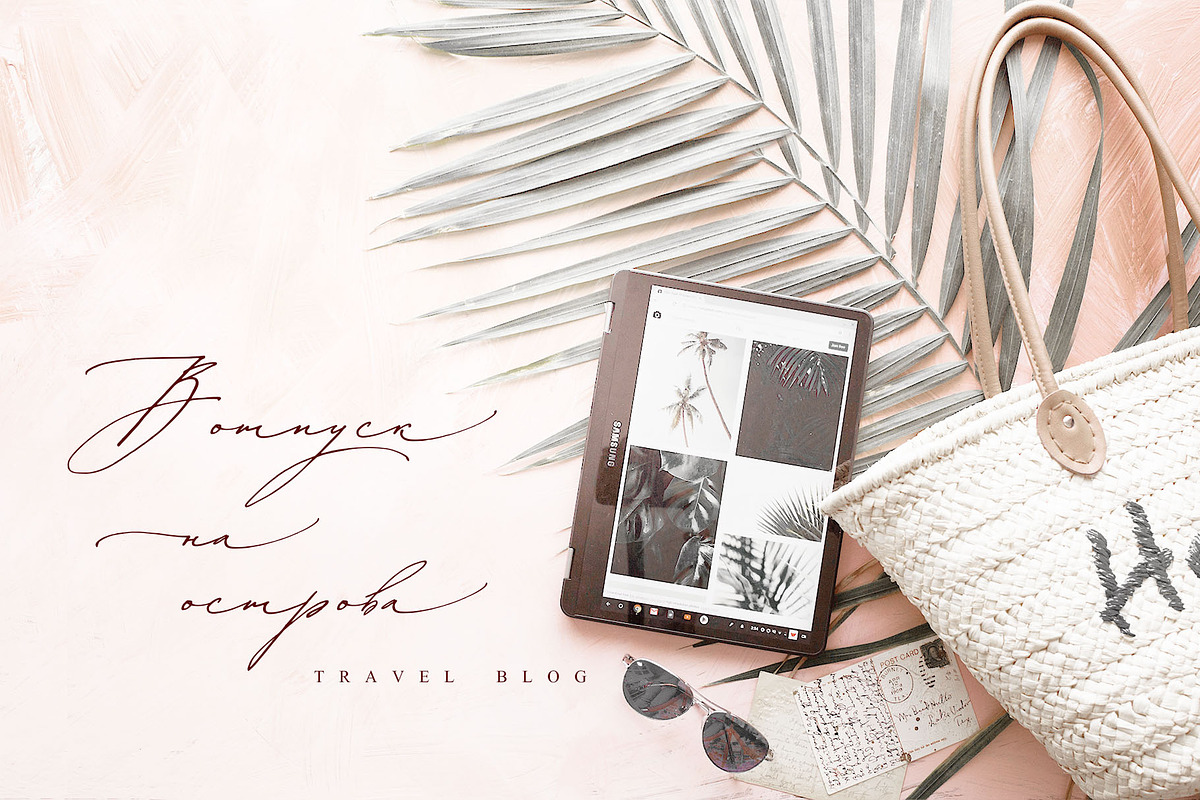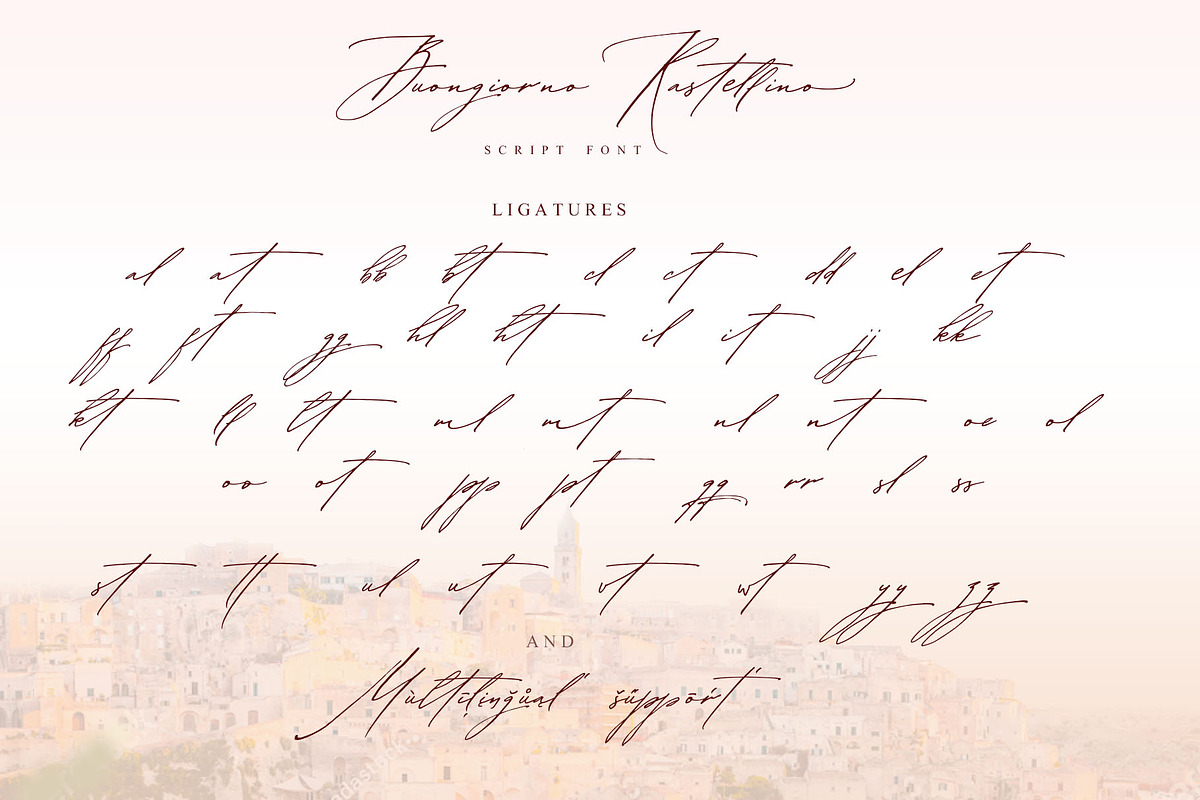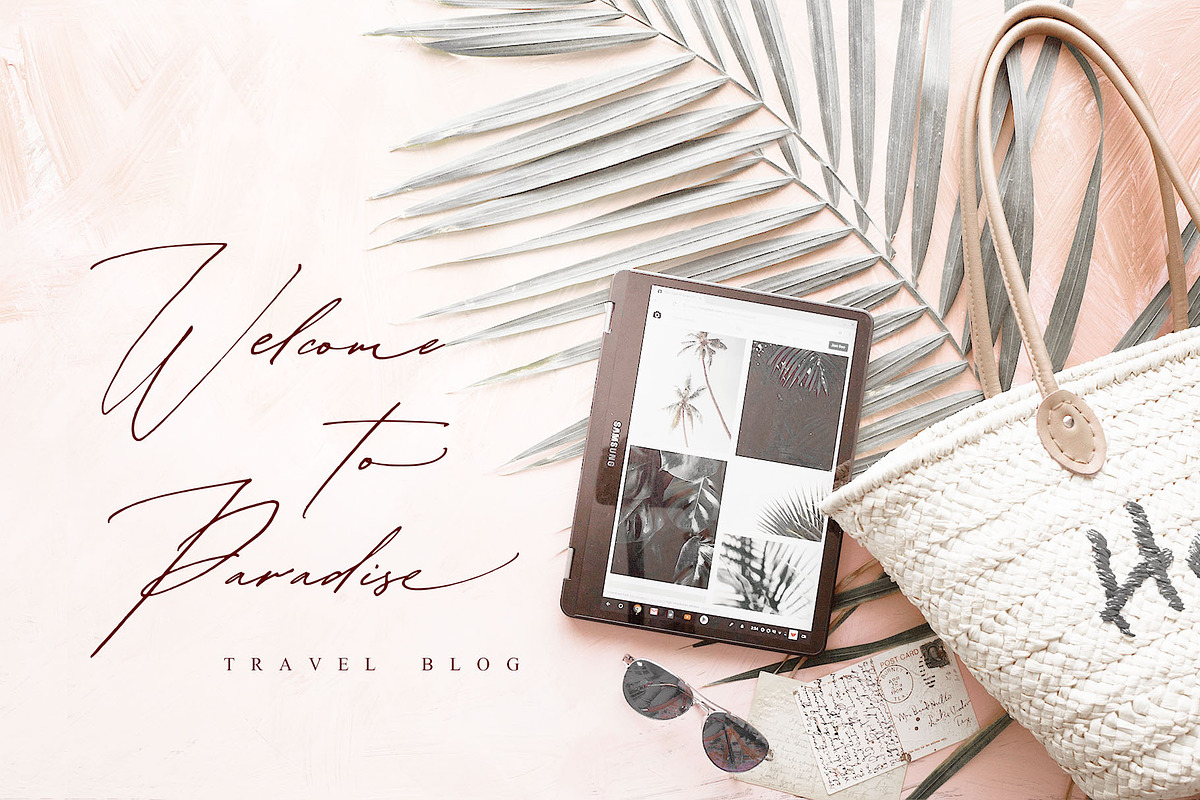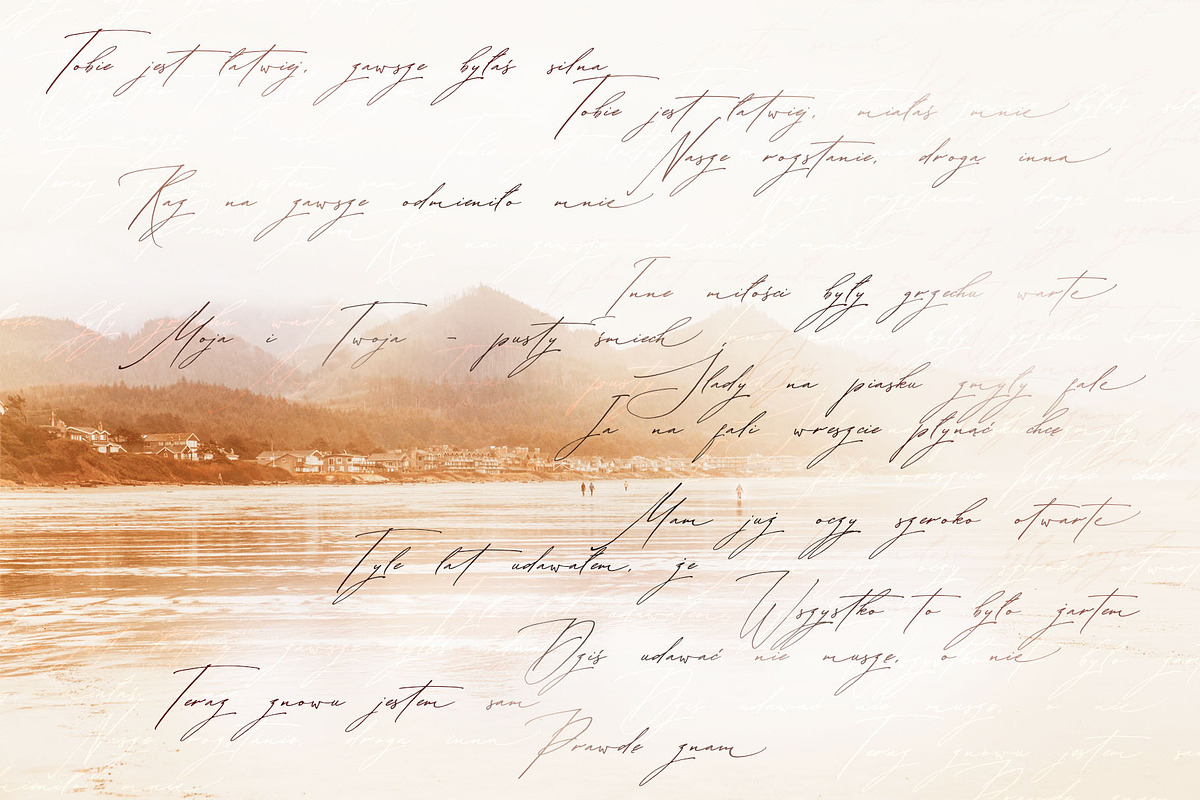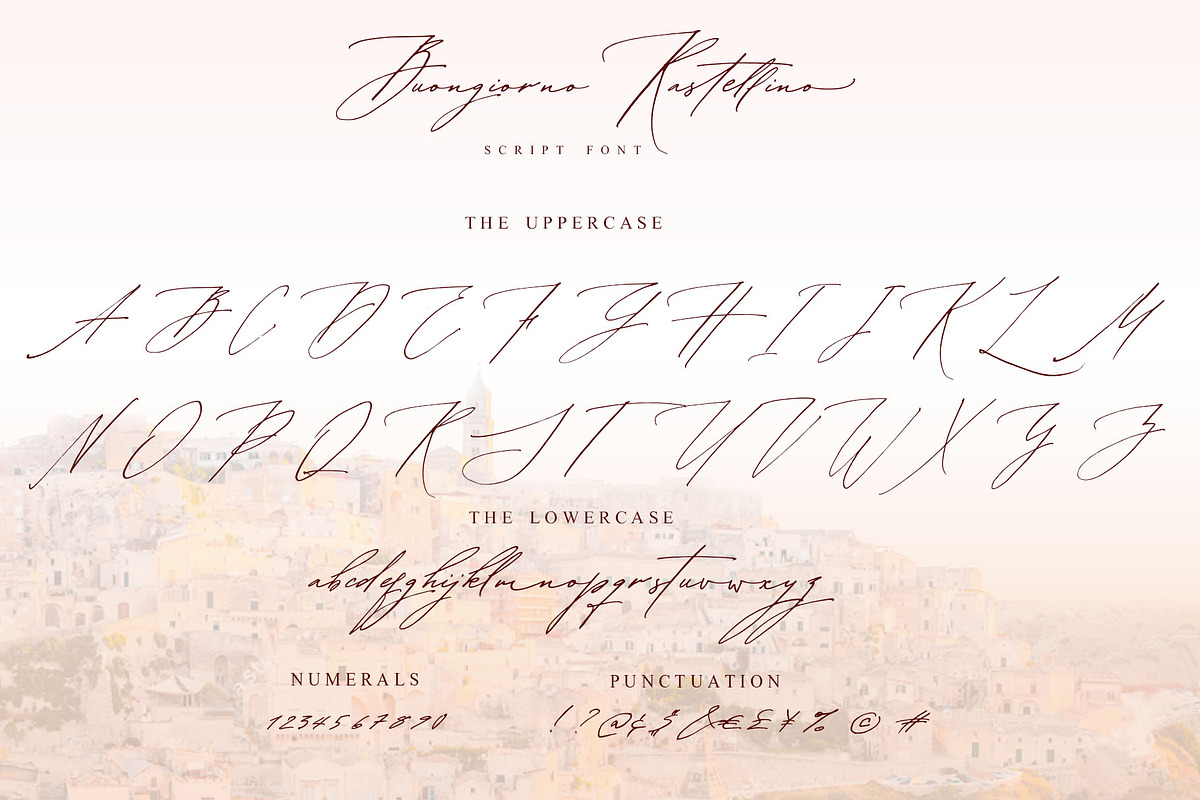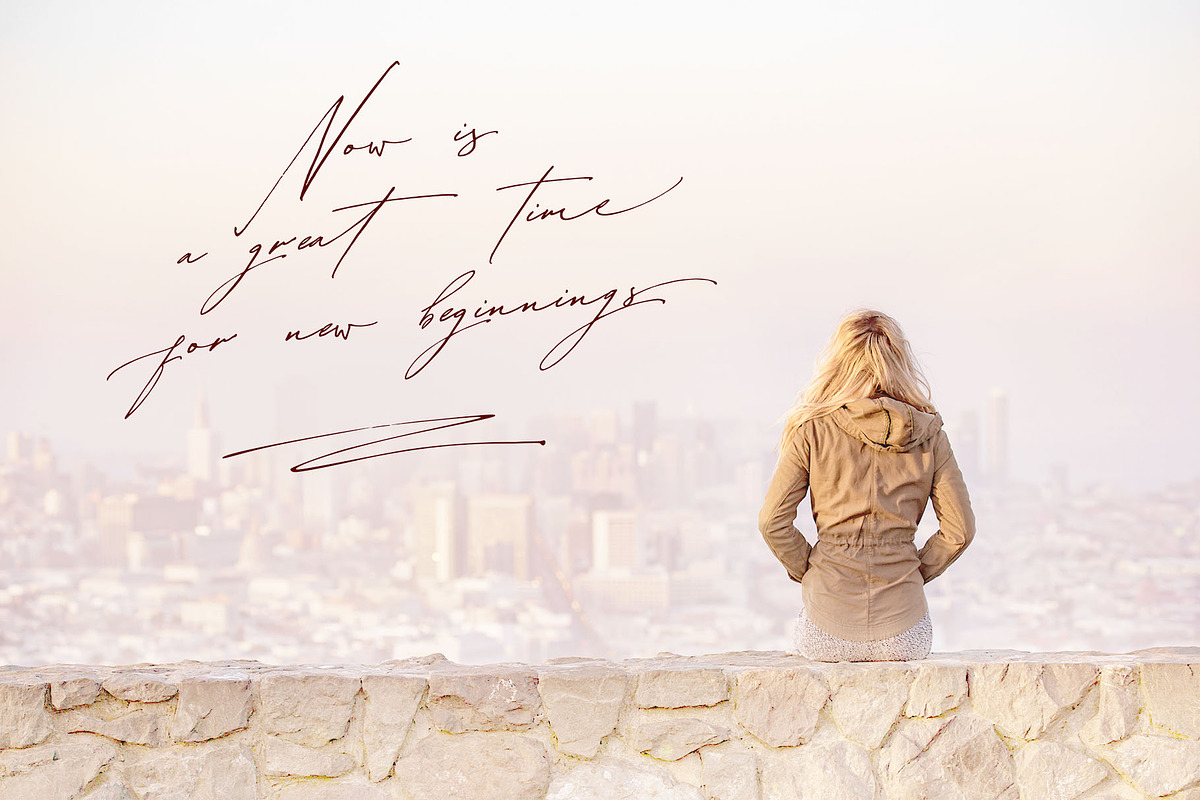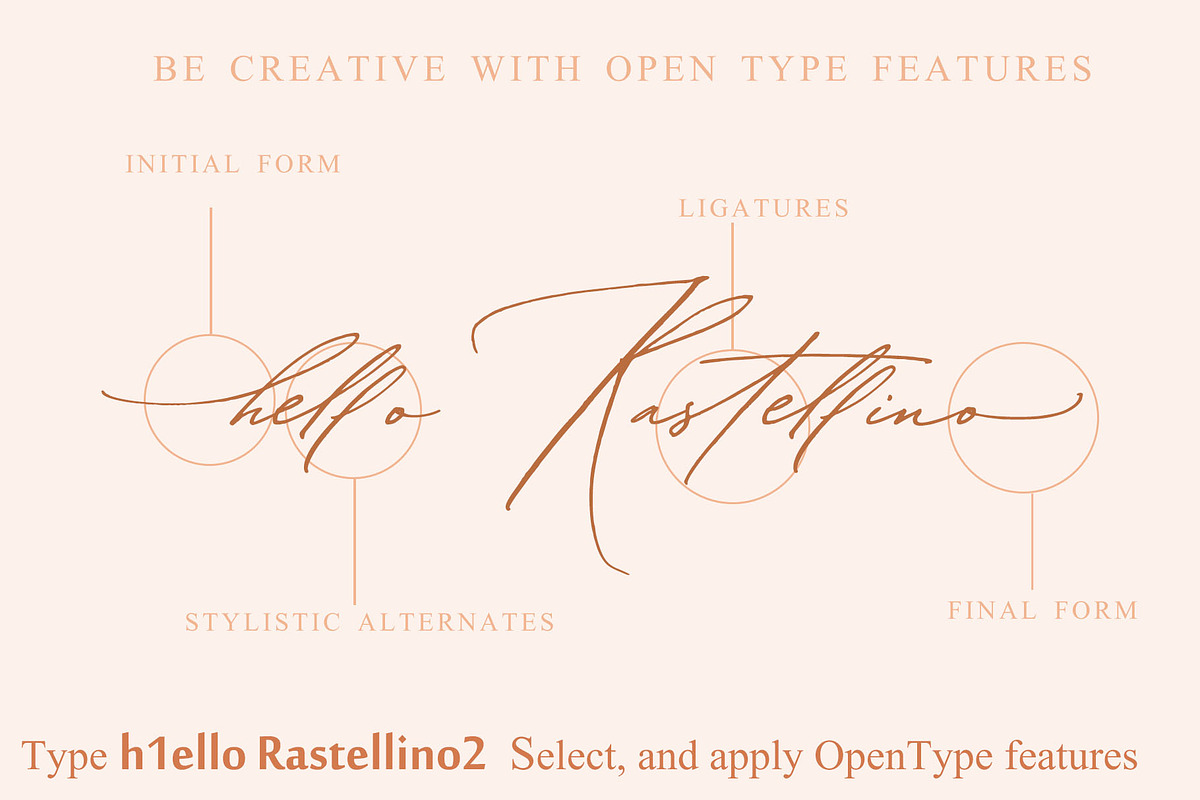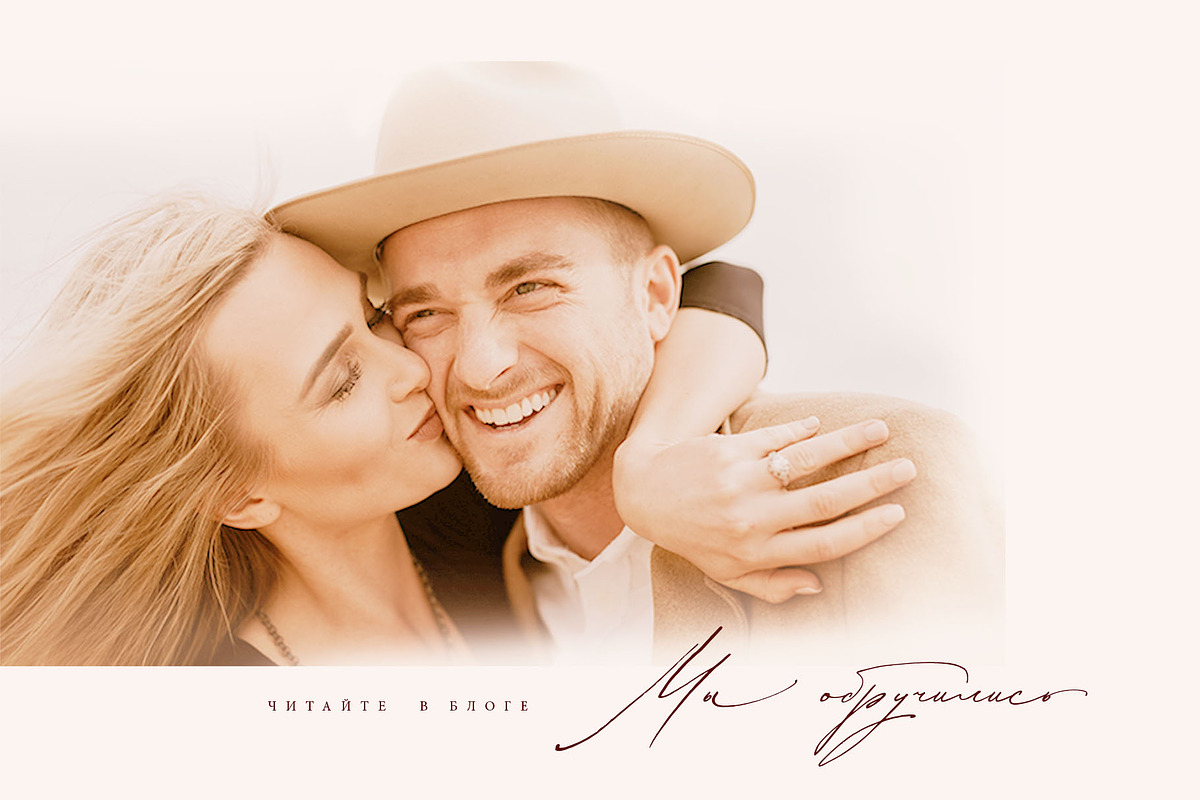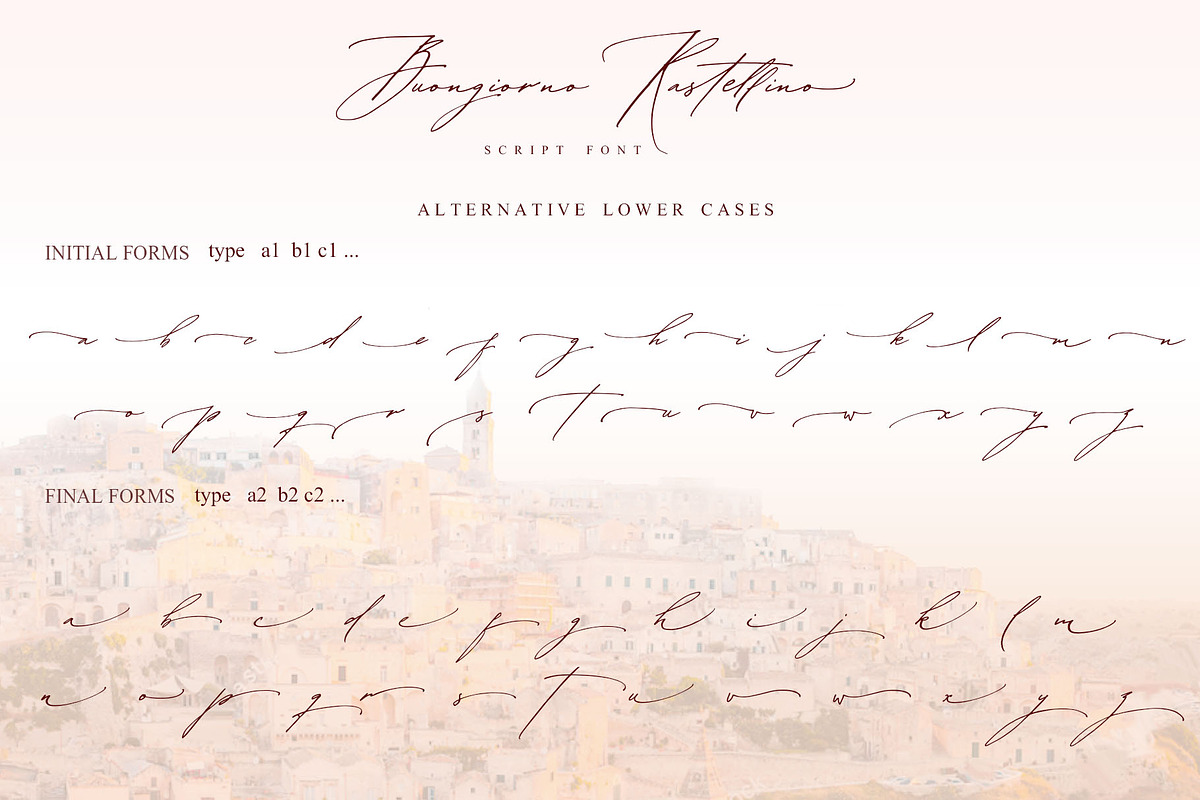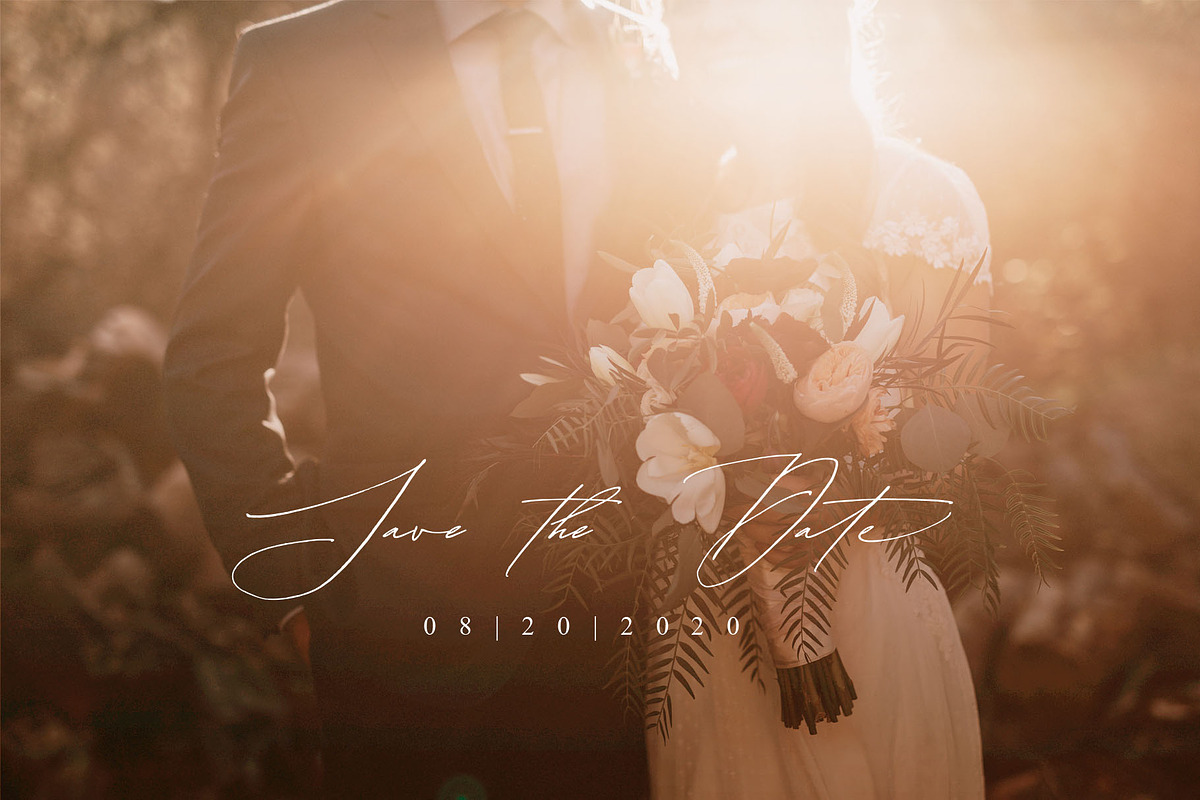
Buongiorno Rastellino font Cyrillic
Buongiorno Rastellino — Elegant Handwritten Script Font with Cyrillic & Latin Support
Buongiorno Rastellino is an expressive handwritten script font created for designers who want their typography to feel elegant, personal, feminine, and authentically hand-lettered. Its flowing strokes, graceful curves, decorative swashes, and distinctive letterforms give every word a natural handwritten character.
Inspired by expressive brush lettering and modern calligraphy, Buongiorno Rastellino combines a romantic aesthetic with the versatility needed for contemporary branding and graphic design. It works beautifully when you need typography that feels warm, sophisticated, artistic, and memorable.
A special feature of the font is its collection of letters with extended tails and decorative swashes. These elongated letterforms can flow beneath or around neighboring characters, creating elegant flourishes and expressive handwritten compositions. Use them to add movement, personality, and a custom hand-lettered feel to names, headlines, logos, quotes, and short phrases.
Cyrillic & Latin Script Font
Buongiorno Rastellino includes Cyrillic and Latin alphabets, making it an excellent choice for multilingual projects and designers working with both Western and Eastern European languages.
The font includes a variety of alternative letterforms and OpenType features that allow you to customize your lettering and create more natural-looking combinations. Ligatures and stylistic alternatives help avoid the repetitive appearance of standard typed text and make each composition feel more like authentic hand lettering.
Multilingual Support — 82 Languages
Buongiorno Rastellino provides extensive multilingual support for 82 languages, making this handwritten script font suitable for international branding, packaging, wedding stationery, editorial design, social media content, and other multilingual creative projects.
With broad support for both Latin and Cyrillic writing systems, Buongiorno Rastellino is designed for creators who need an elegant script font that can work across multiple languages and international markets.
Decorative Letters & Swashes
The decorative letterforms with long flowing tails are ideal for creating expressive typography without having to draw every flourish manually. Use them at the beginning or end of words, combine them with other characters, or let the extended strokes create elegant visual connections between letters.
These swashes are particularly effective for:
Names and monograms
Wedding lettering
Logo design
Signature-style branding
Quotes and typography artwork
Elegant headlines
Boutique branding
Beauty and fashion identities
Packaging and labels
Perfect for
Wedding invitations · Wedding stationery · Save the date cards · Bridal designs · Logos · Branding · Brand identity · Signature logos · Beauty branding · Fashion branding · Boutique logos · Packaging · Product labels · Greeting cards · Quotes · Posters · Social media graphics · Instagram designs · Blog graphics · Editorial design · T-shirts · Apparel · Stickers · Stationery · Handmade products · Small business branding · Personal projects
Buongiorno Rastellino is especially well suited to romantic, feminine, elegant, luxurious, vintage-inspired, artistic, and handcrafted designs, but its natural handwritten character also works beautifully in modern branding and editorial layouts.
Handwritten script font
Elegant modern calligraphy style
Cyrillic and Latin alphabets
Multilingual support for 82 languages
Decorative letters with long flowing tails
Swashes and flourishes
Alternative letterforms
OpenType stylistic features
Ligatures for natural-looking letter combinations
Expressive handwritten character
Suitable for logos and branding
Suitable for wedding and stationery design
Suitable for packaging and labels
Suitable for digital and print projects
Whether you are creating a Cyrillic wedding invitation, elegant logo, feminine brand identity, beauty packaging, boutique label, signature-style logo, social media graphic, greeting card, or expressive typography artwork, Buongiorno Rastellino adds the warmth and individuality of real hand lettering to your design.
Create typography that looks personal, graceful, and beautifully written — with the flexibility of a professional digital font.